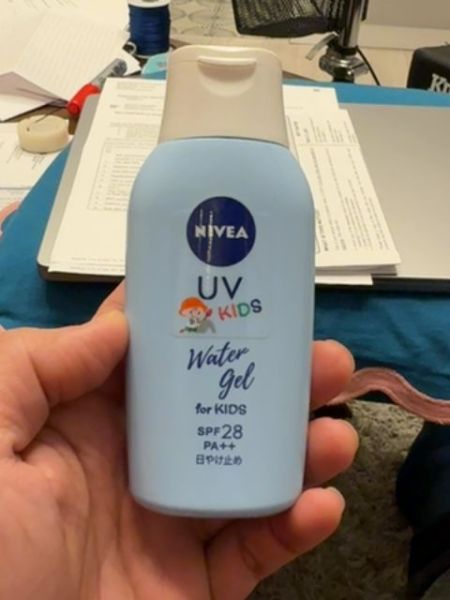
Nivea UV Water Gel for Kids
A sunscreen gel designed for children, providing SPF 28 protection against UV rays.
The typography on the packaging uses a clean and modern sans-serif font, creating a sense of trust and simplicity. The use of different font weights helps to emphasize key product features like 'UV' and 'Water Gel,' while the playful font for 'Kids' is colorful and engaging, appealing to a younger audience.
The packaging features a compact, light blue plastic bottle that is easy to hold. It has a flip-top cap for convenient dispensing and a playful illustration of a child to appeal to kids.